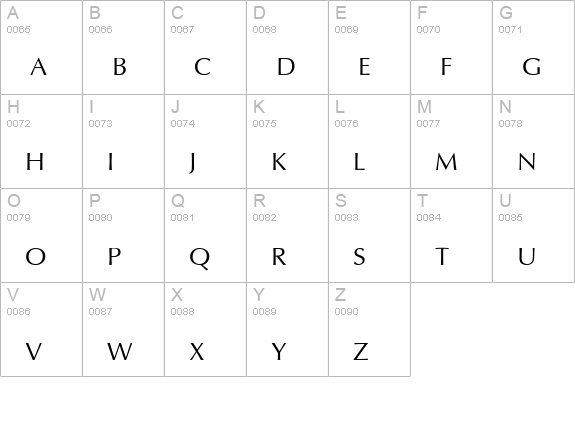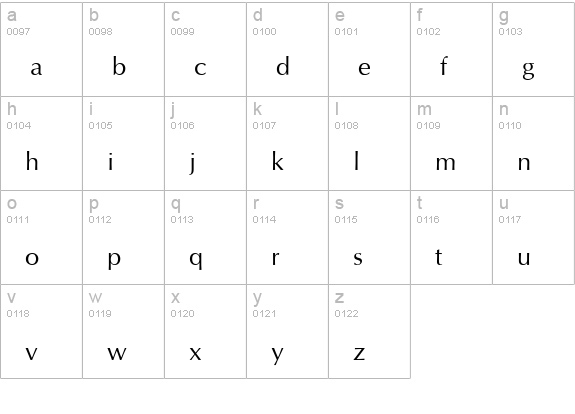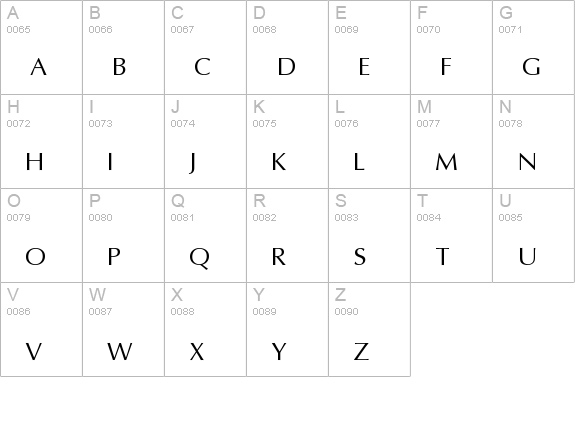
IrisUPC Font Details
Introducing IrisUPC, a stunningly elegant font that combines classic sophistication with a modern twist. Designed with meticulous attention to detail, this typeface exudes a timeless charm that is perfect for a wide range of design projects. With its clean lines and graceful curves, IrisUPC captures the essence of refined beauty. Each letter is meticulously crafted to ensure optimal legibility, while retaining its distinct sense of elegance. Whether used for branding, signage, print materials, or digital applications, this font effortlessly commands attention and leaves a lasting impression. What sets IrisUPC apart is not only its exceptional design but also its availability. This remarkable font is available to everyone for free. Yes, you read that right – free! Thanks to the generous contributions of FontsMarket.com, IrisUPC can be easily downloaded and used in any creative endeavor. Say goodbye to expensive font licenses and hello to the freedom of artistic expression. Whether you are a professional designer, a student, or an enthusiastic hobbyist, IrisUPC opens up a world of possibilities. Its versatility allows it to seamlessly adapt to a variety of design styles and aesthetics, making it the go-to choice for any project that demands a touch of sophistication. So, why wait? Unlock your creative potential with IrisUPC and experience the freedom of having a high-quality font at your fingertips. Simply head over to FontsMarket.com and download this remarkable font for free. Elevate your designs to new heights and make a lasting impression with IrisUPC – the font that combines classic elegance with contemporary flair.